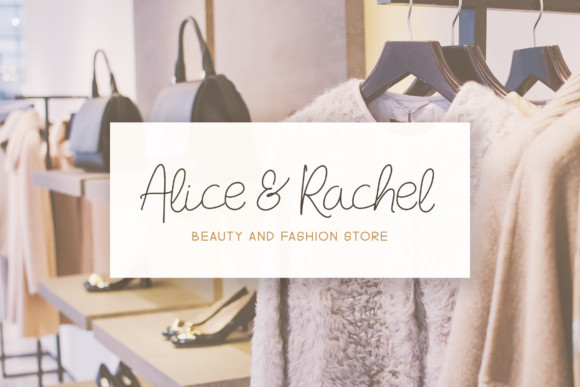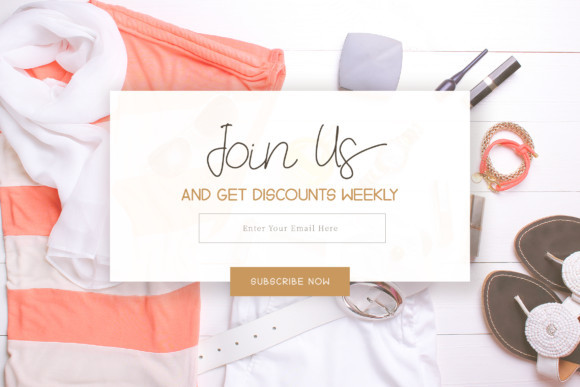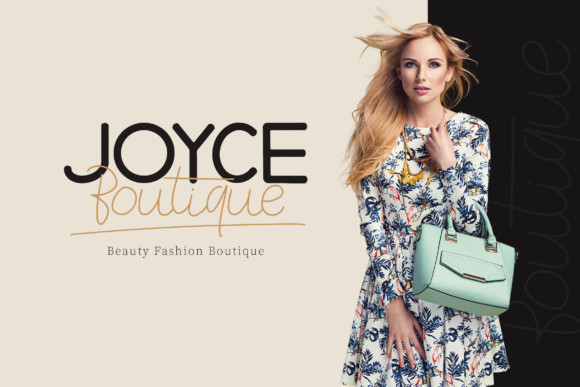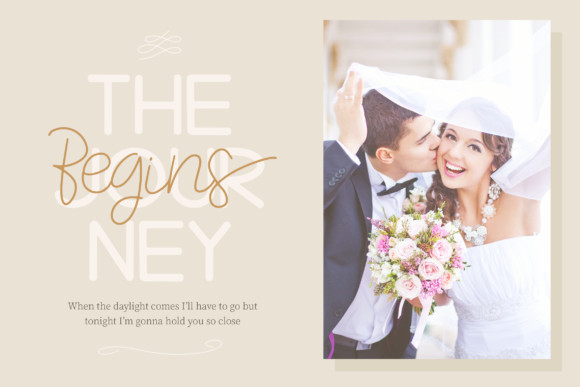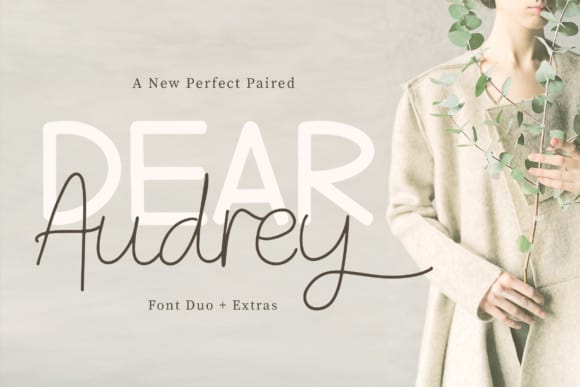
Dear Audrey Font Duo
Introducing Dear Audrey Font Duo! This is a beautiful hand drawn font collection of two Script fonts and Sans Serif font (). It’s designed and shared by peterdraw. It’s a pretty handwritten font duo font with a unique and elegant feel. Use both font styles together to customize your project and impress readers. Perfectly combined typographic harmony is perfect for posters, greeting cards, t-shits, branding materials, quotes and any other amazing projects you are working on. Each font can be used separately. In conjunction they give a sense of lightness and delicacy and a little vintage feel.